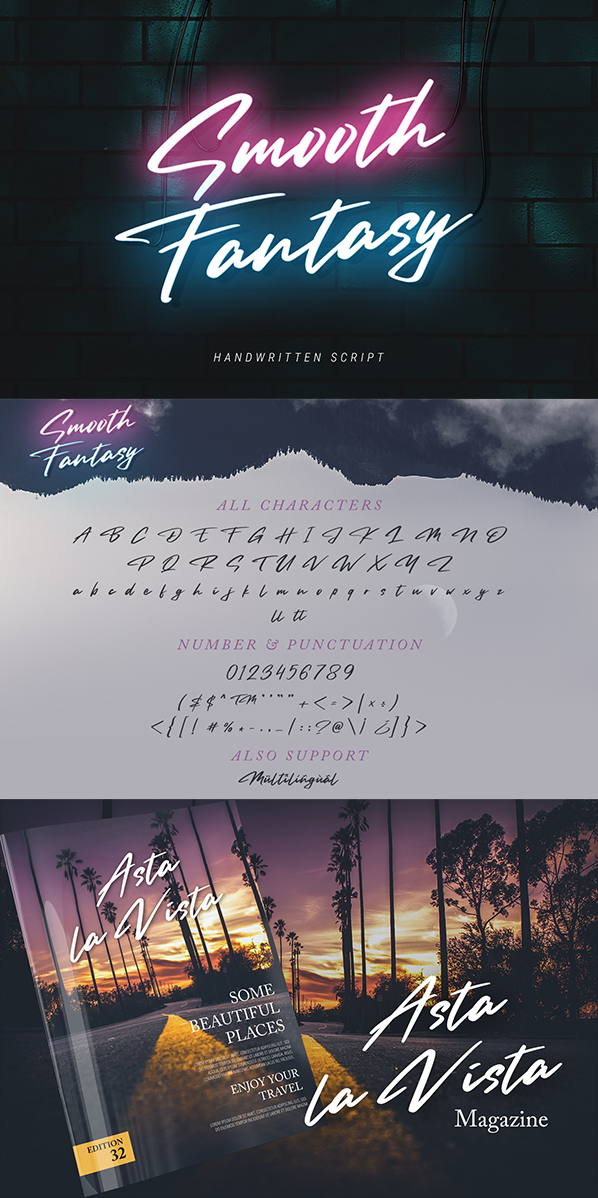
Preview and download Smooth Fantasy Font. Created by Donis Miftahudin in Script Handwritten styles with Demo license.
Hello... I want to introduce Smooth Fantasy Font, This font suitable for your design project especially for branding packaging, lettering and others. Link for commercial use: =========================================================== https://din-studio.com/product/smooth-fantasy-script/ =========================================================== NOTES PENTING BAGI PENGGUNA FONT Smooth Fantasy : PENGGUNAAN FONT UNTUK KOMERSIL TANPA MEMBELI LISENSI RESMI DARI din-studio.com MAKA DIKENAKAN BIAYA PEMBELIAN LISENSI MINIMAL 5X DARI HARGA SESUAI LILISENSI !!!! IMPORTANT NOTES FOR Smooth Fantasy USERS: USE OF FONT FOR COMMERCIAL WITHOUT BUYING OFFICIAL LICENSE FROM din-studio.com THEN PURCHASE FEES FOR PURCHASE LICENSE OF 5X MINIMUM LICENSE FROM THE LICENSE !!!! |